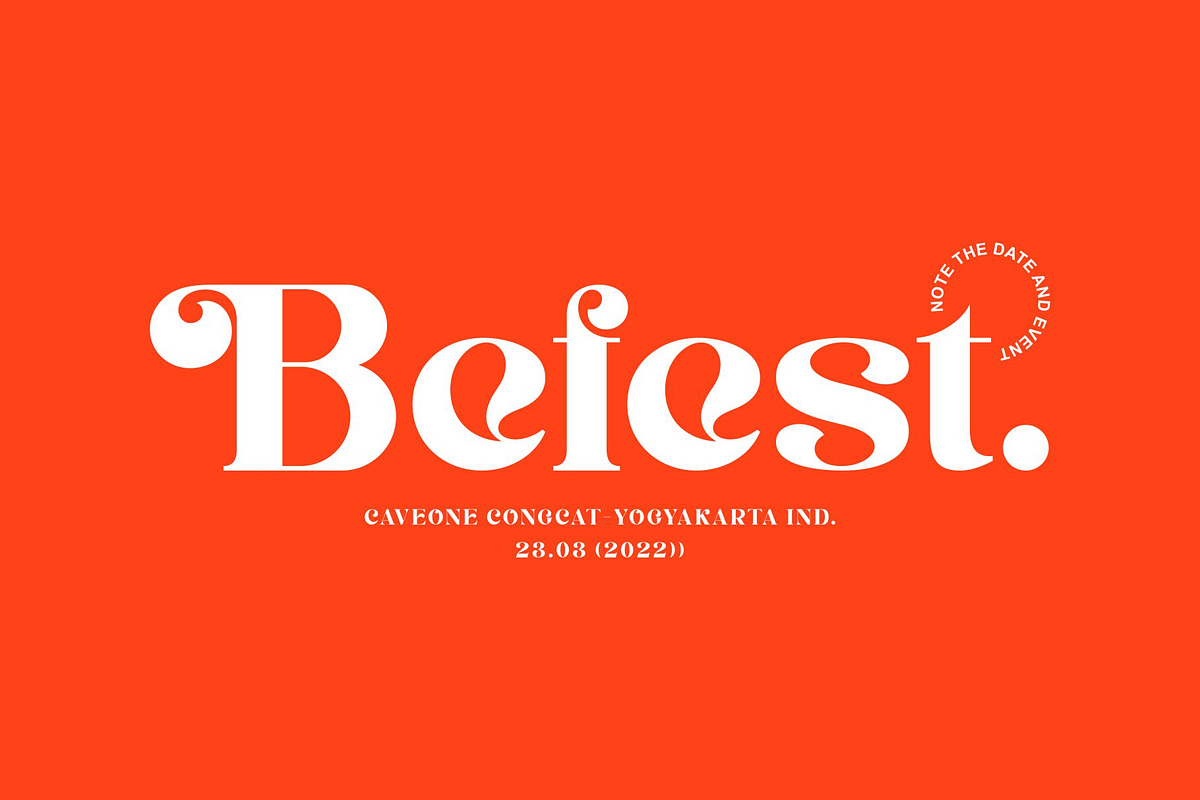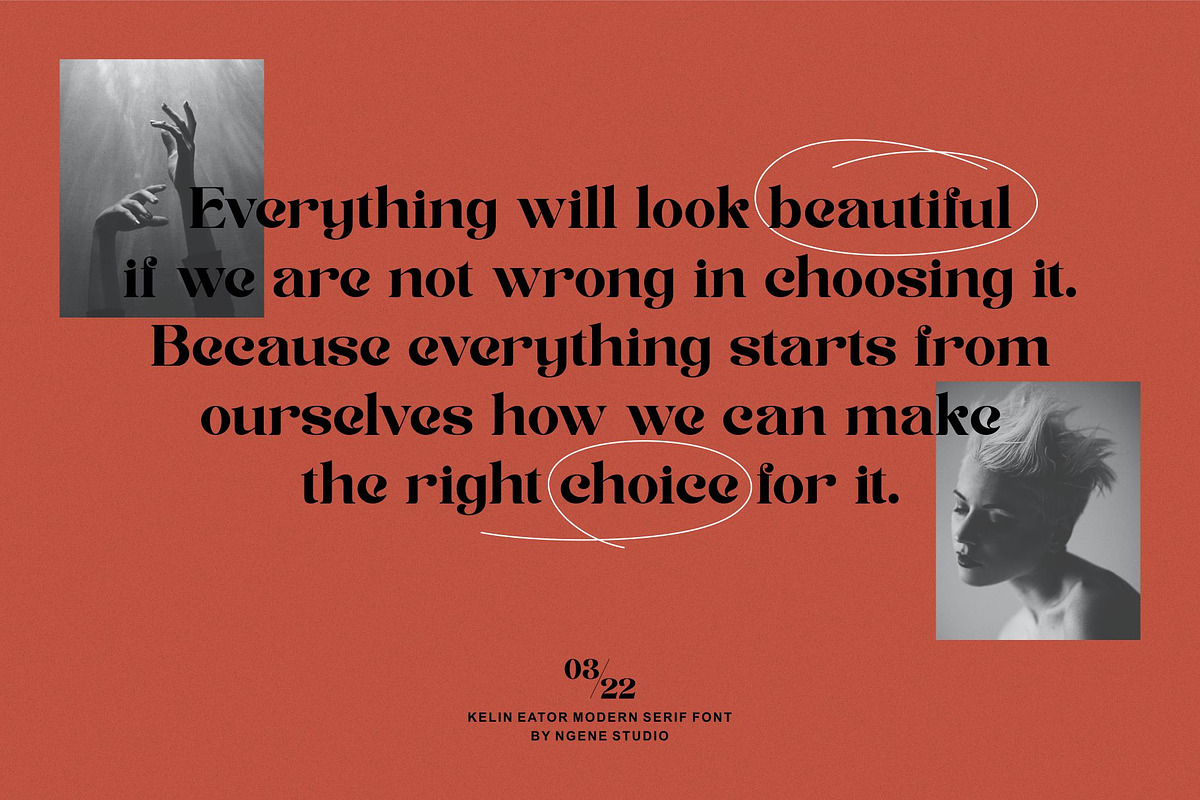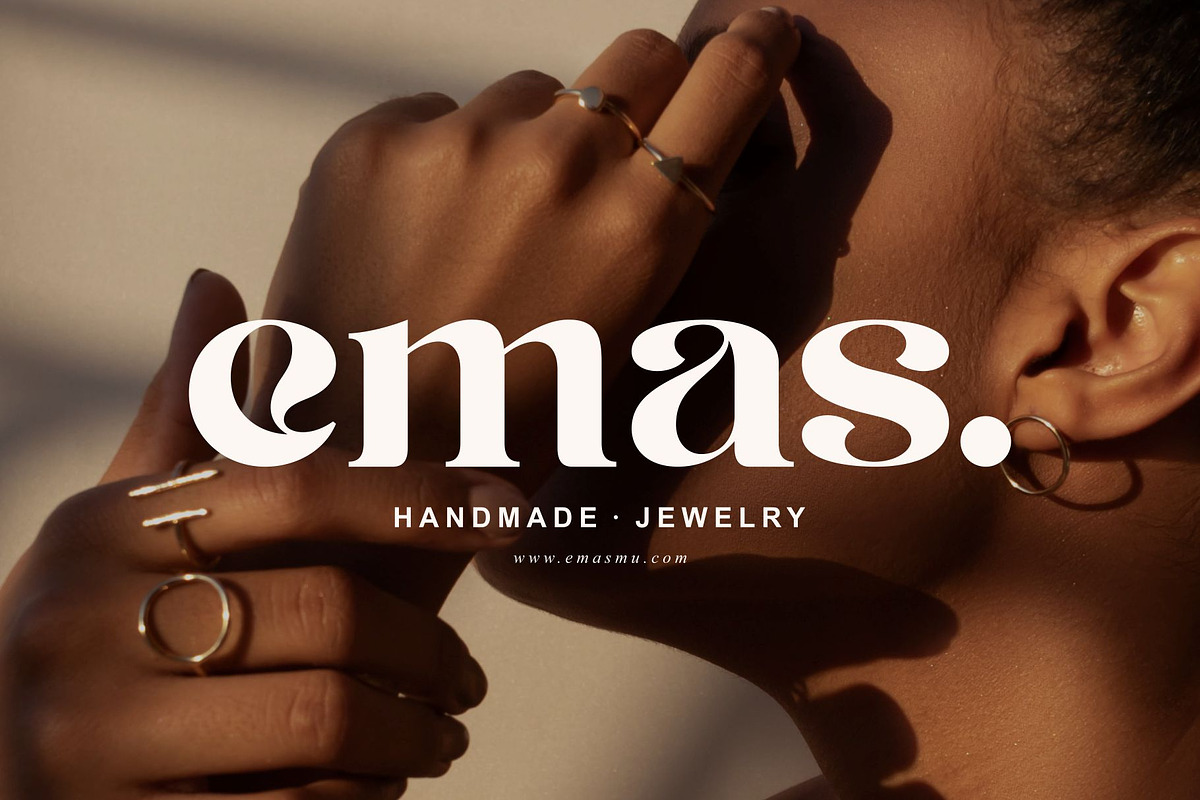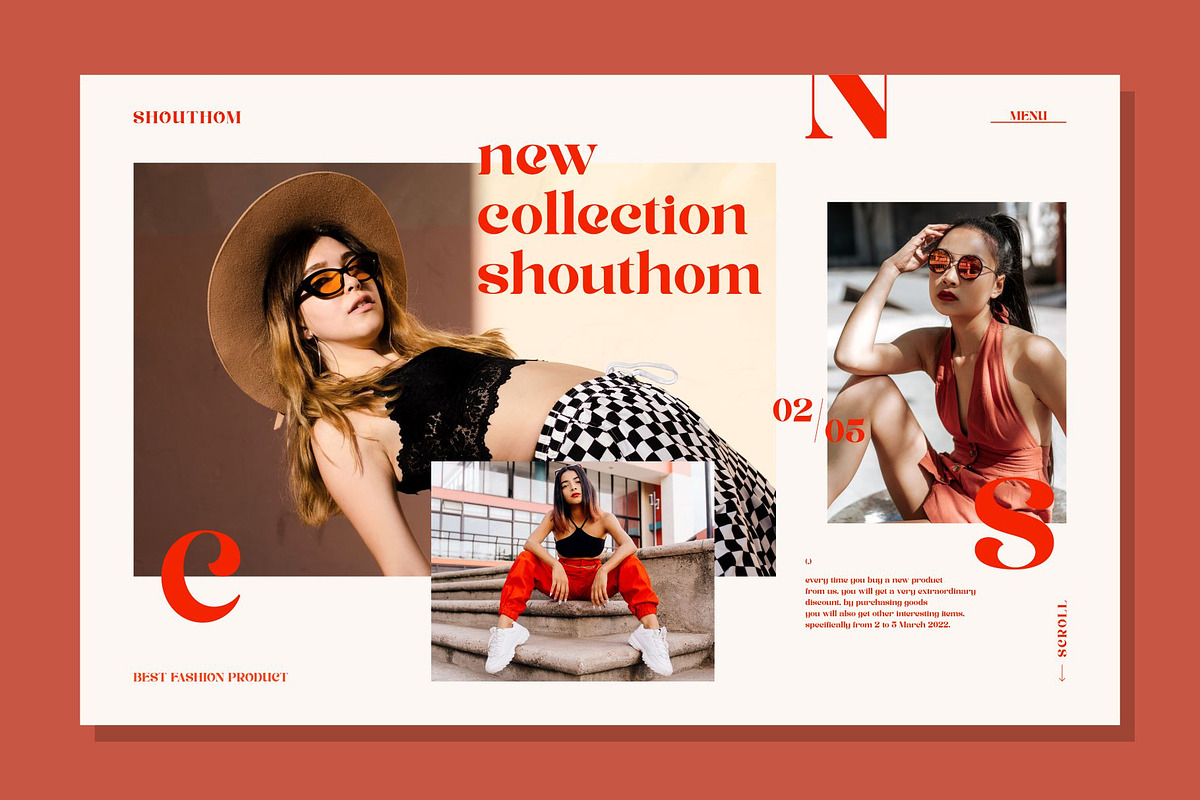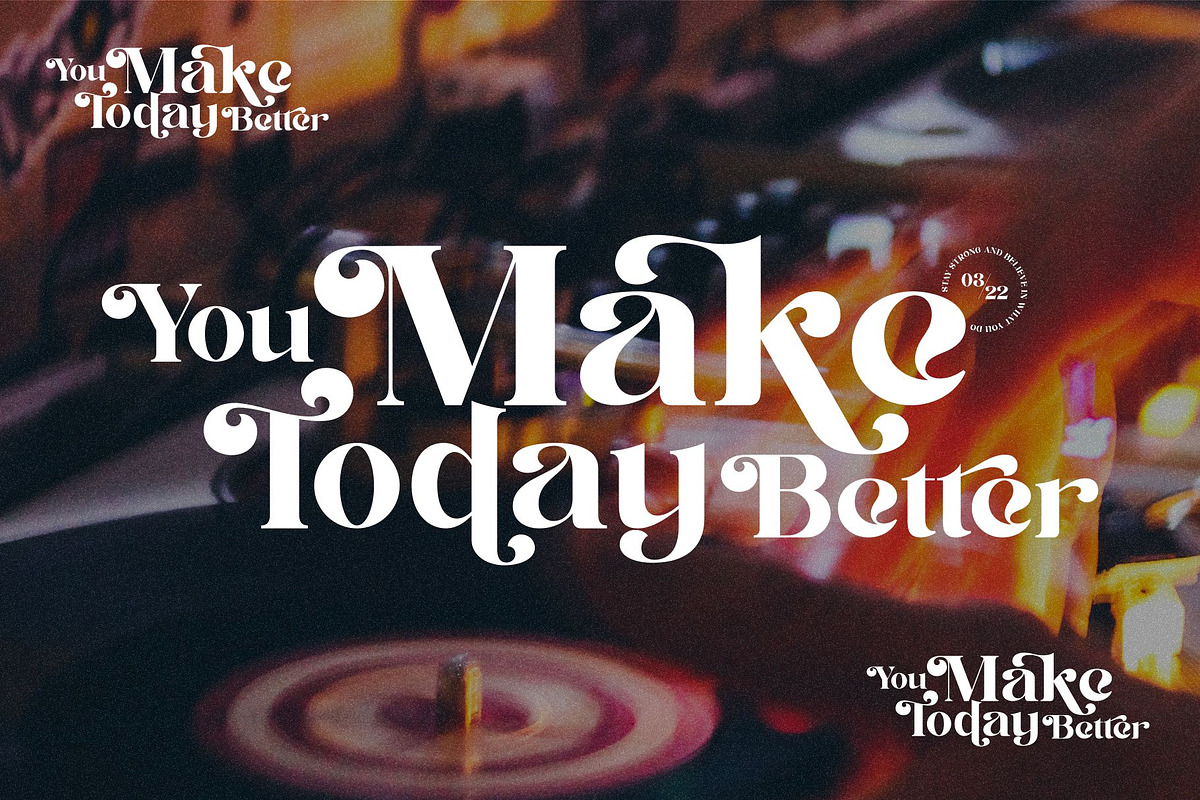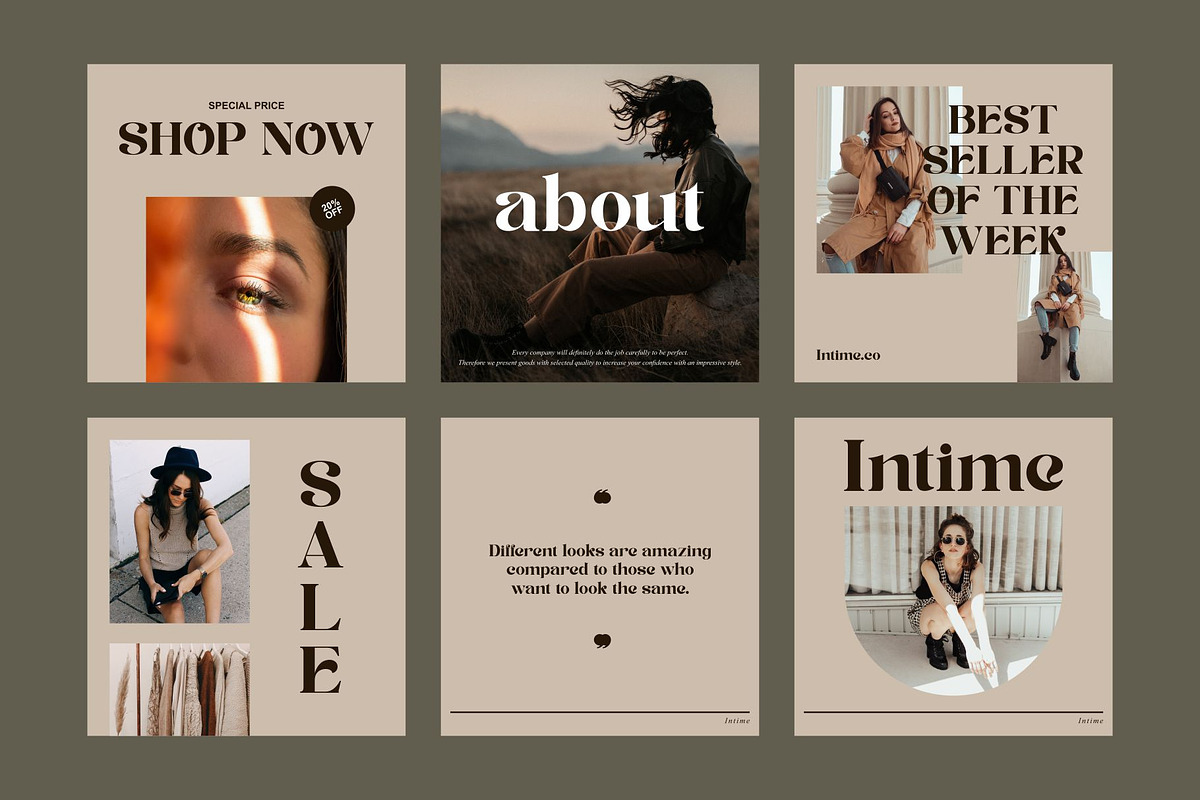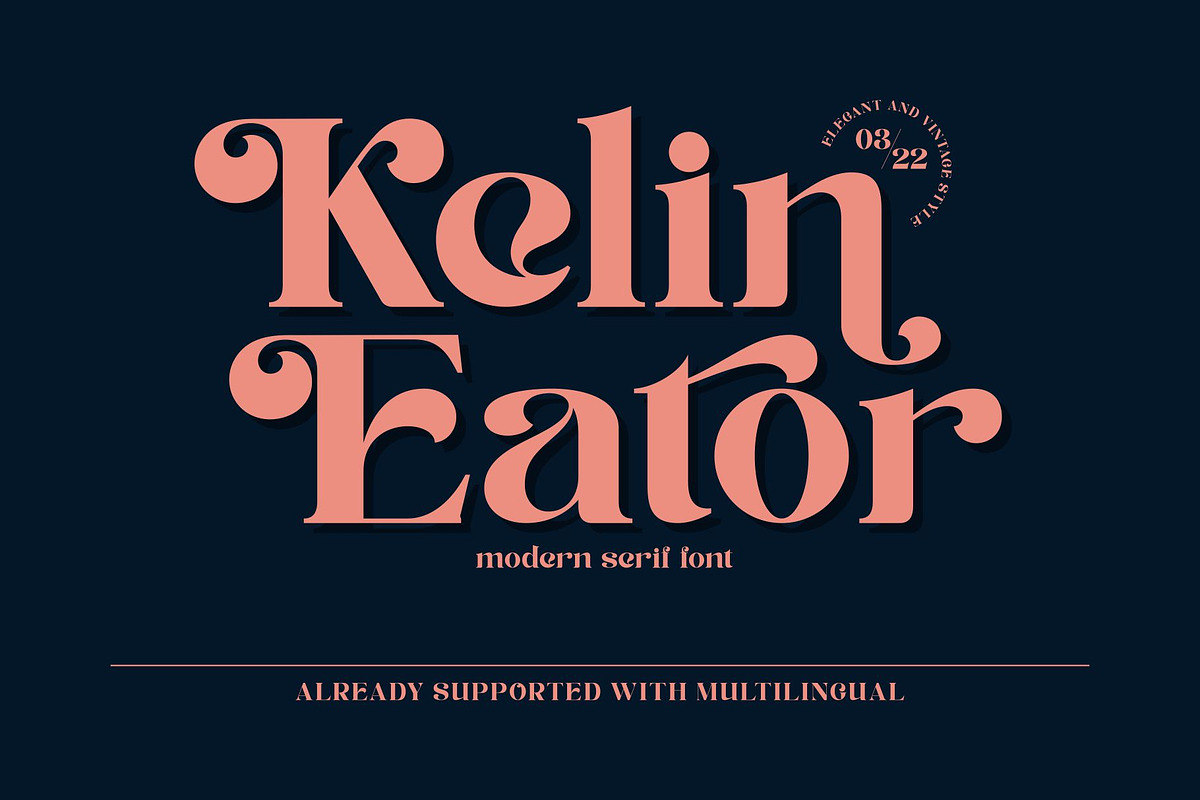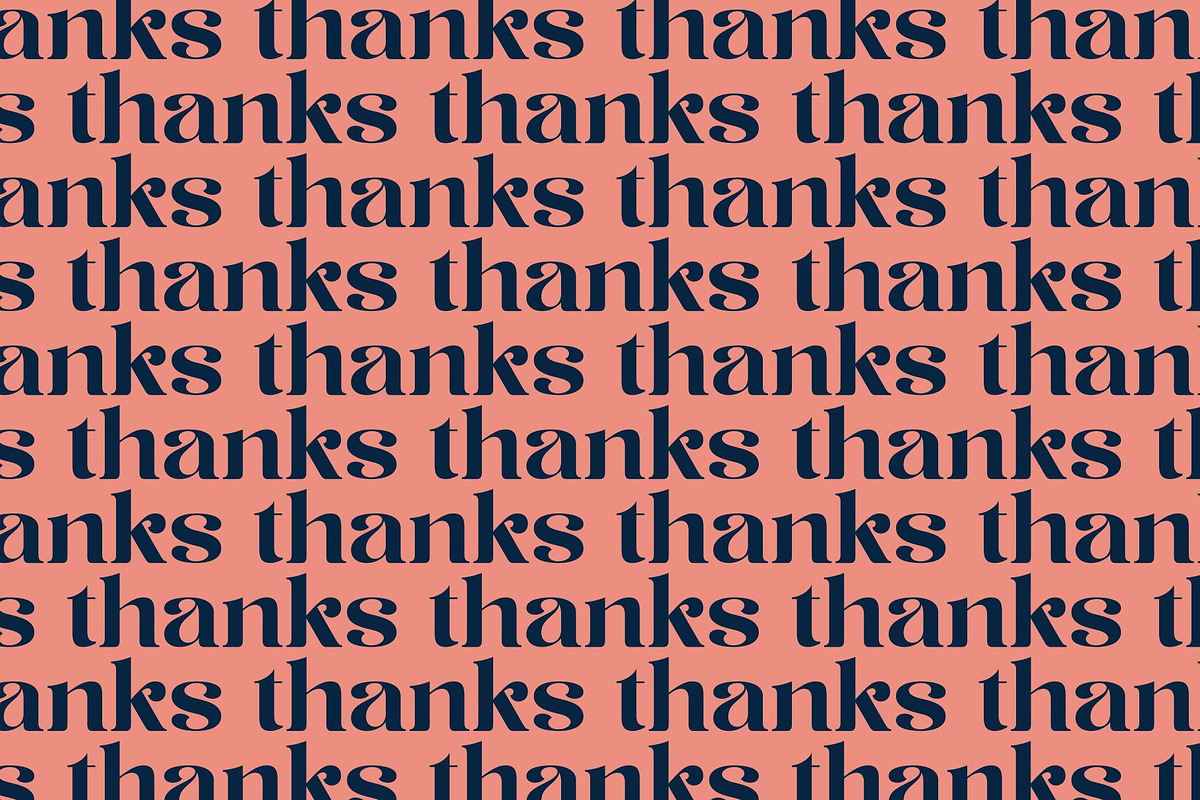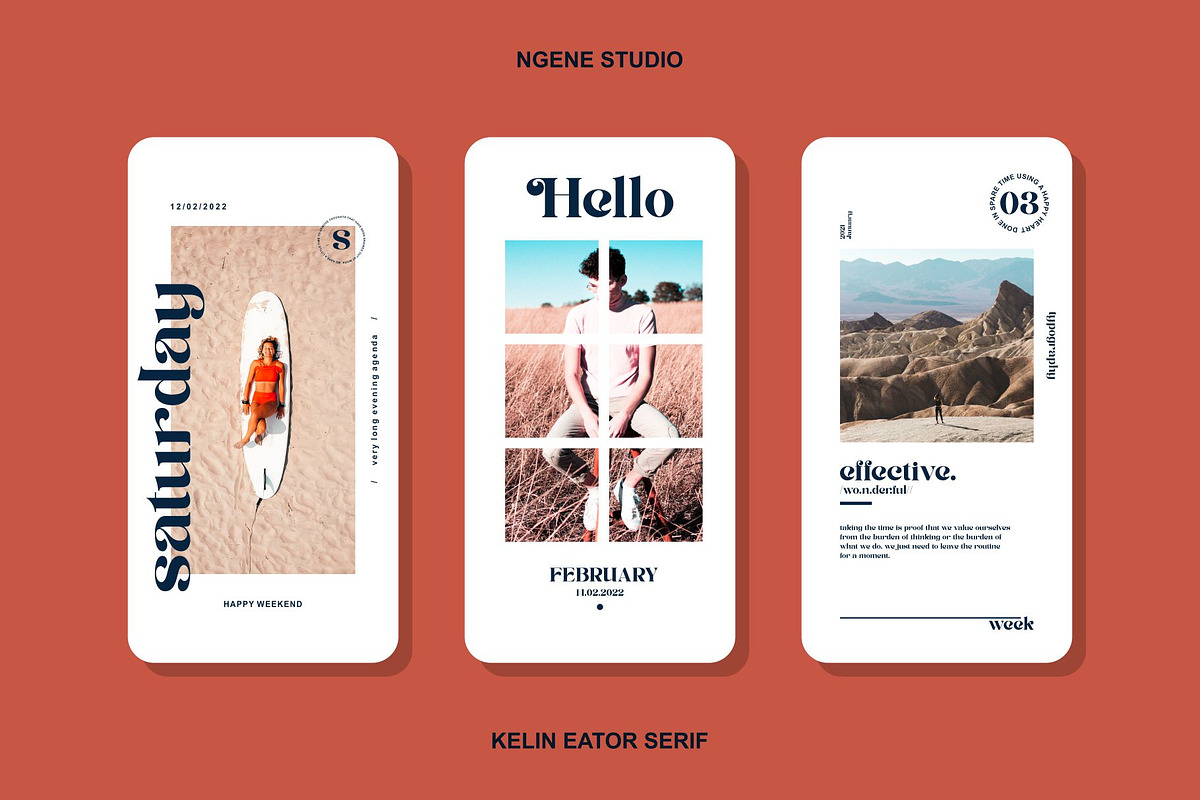
Kelin Eator
Kelin Eator vintage style serif font with an elegant and modern touch, this font draws from a wide variety of characters. This font has several built-in alternatives, perfect for creating logo designs, Instagram stories, instagram posts, logos, magazines, web designs, posters, invitation cards, packaging, badges, logo types, clothing designs, labels and much more. This font will make your design more different and more attractive.
Kelin Eator also has multilingual support, so you can use the language you want to use. This font has followed the design developments this year, so your designs will be more attractive and elegant later.